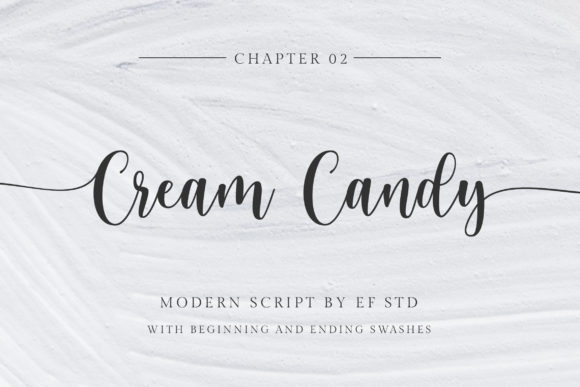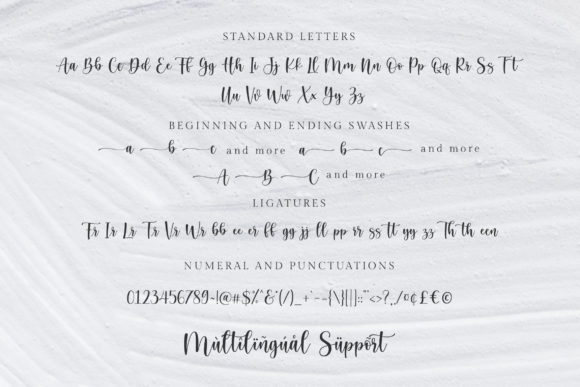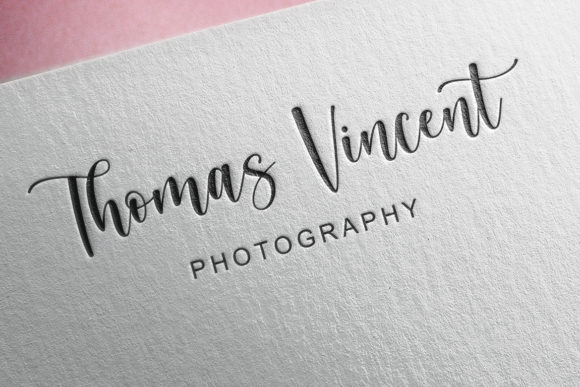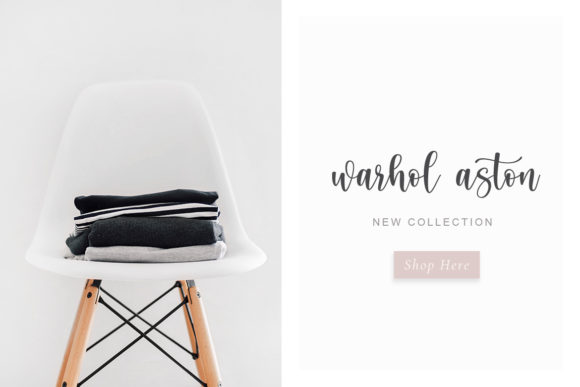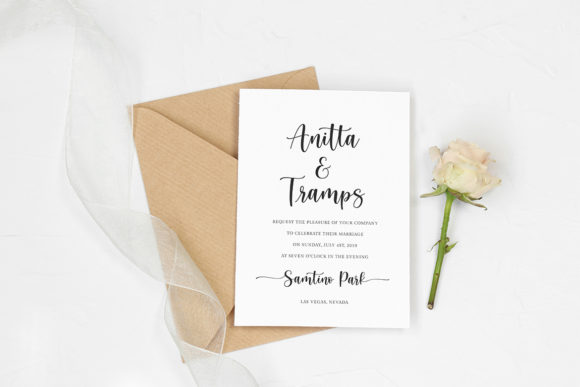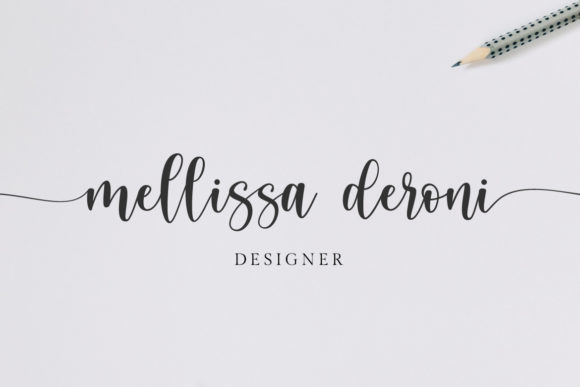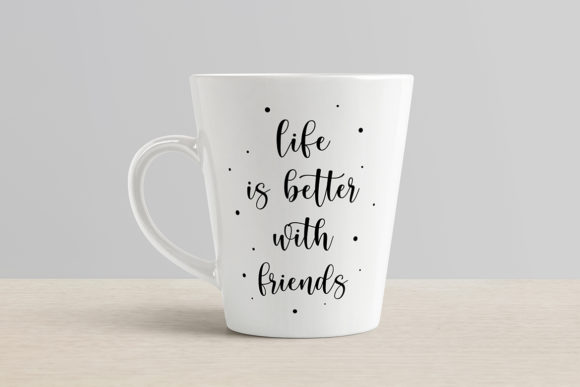
Cream Candy Font
About Cream Candy Font
Cream Candy is a beautiful modern script font with stunning swashes. Its 22 ligatures will add an elevates sense of beauty to any design project.